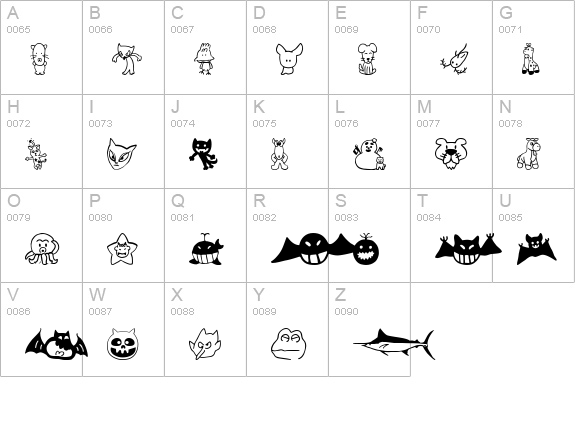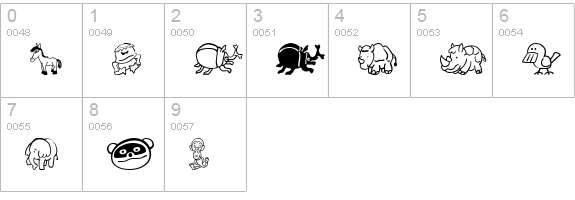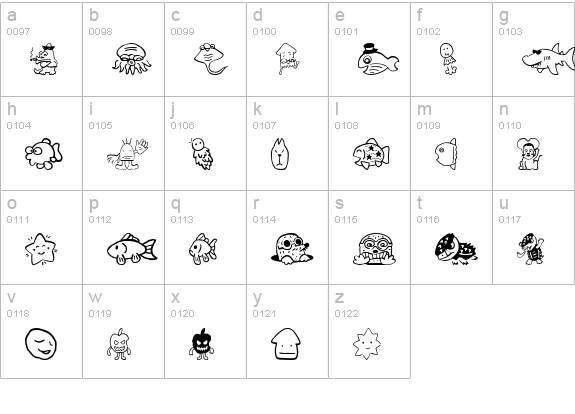
SakabeAnimal02 Font Details
SakabeAnimal02 is a captivating and playful font that brings a touch of wildness to your designs. Inspired by the beauty and diversity of animals, this font features intricate and detailed animal illustrations integrated seamlessly into each character, making it perfect for projects that require a touch of whimsy and nature. With its unique and eye-catching design, SakabeAnimal02 is sure to make a statement. Whether you're designing posters, logos, invitations, or any other creative project, this font will add a touch of fun and creativity. What makes SakabeAnimal02 even more appealing is that it is available for free download at FontsMarket.com. Yes, you read that right, this extraordinary font is freely available, allowing you to unleash your creativity without any cost. FontsMarket.com is a trusted source for high-quality fonts, and with just a few clicks, you can have access to this remarkable font, ready to bring your designs to life. So why wait? Download SakabeAnimal02 today and let your imagination run wild with this free and captivating font. It's time to make your designs stand out from the crowd and leave a lasting impression on your audience.